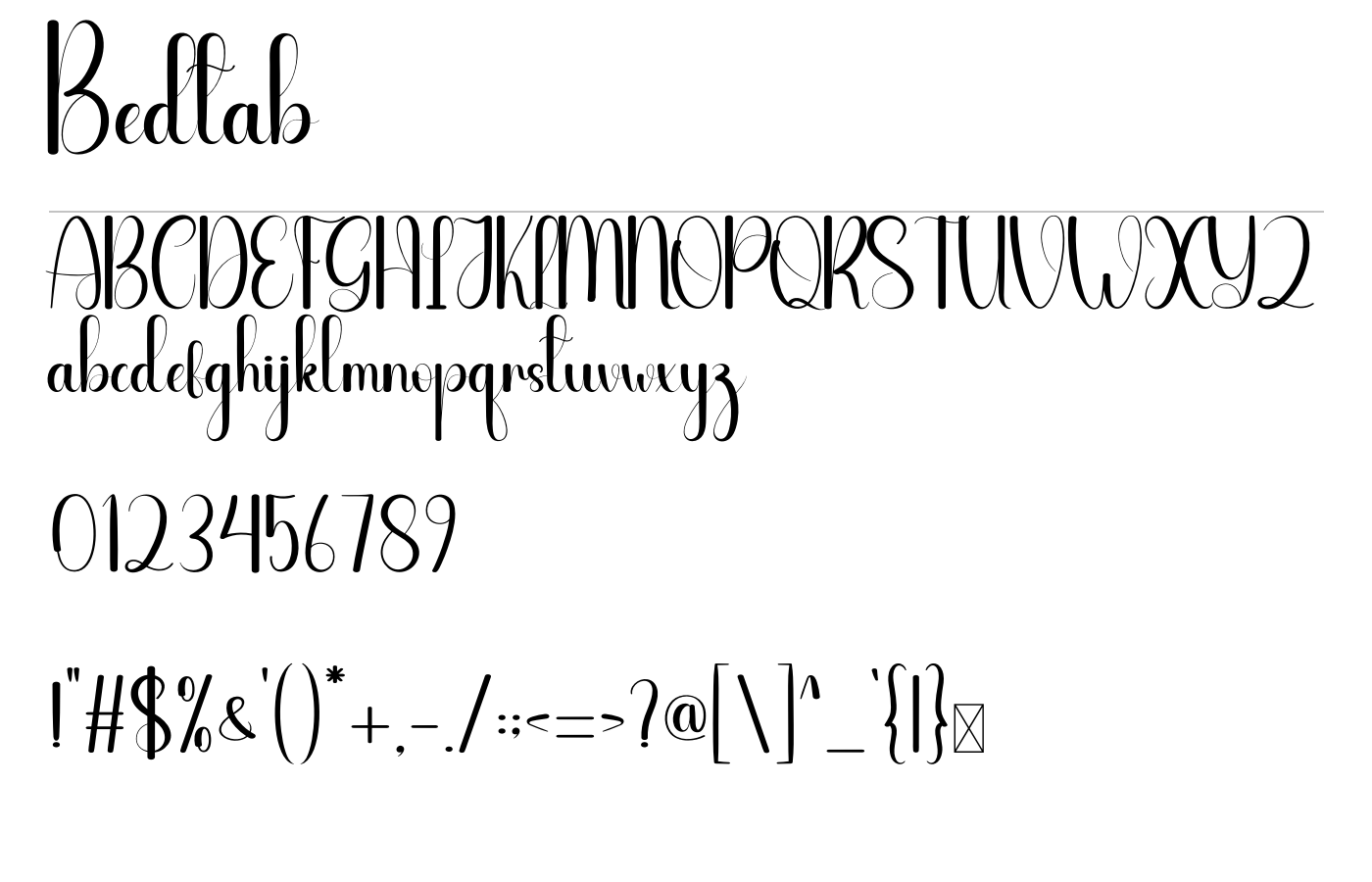
Bedtab is a delicate and stylish script font with a tall, narrow structure and elegant, flowing strokes that create a graceful, artistic appearance. Its light weight and high contrast between thin lines and thicker downstrokes give it a refined, sophisticated feel, ideal for fashion branding, invitations, or any design needing a chic, ornamental touch. This font works best in headlines or decorative accents where its unique, calligraphic charm can truly stand out.
Bedtab Font
About Bedtab Font